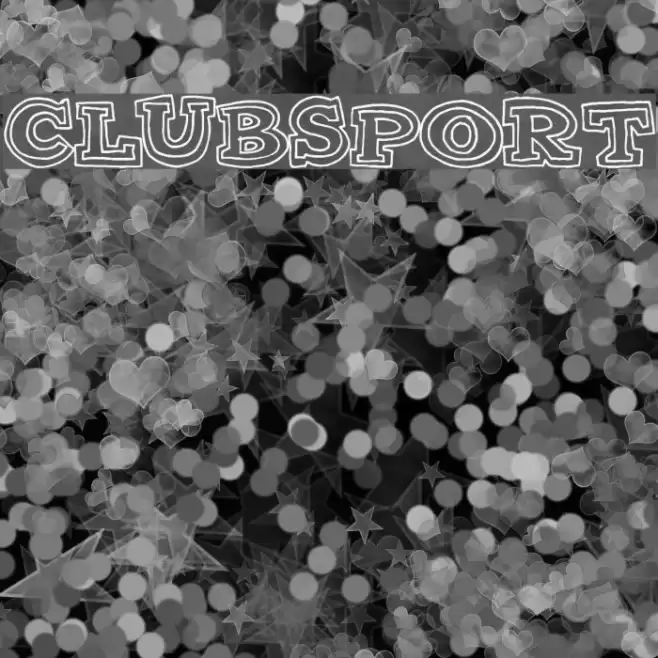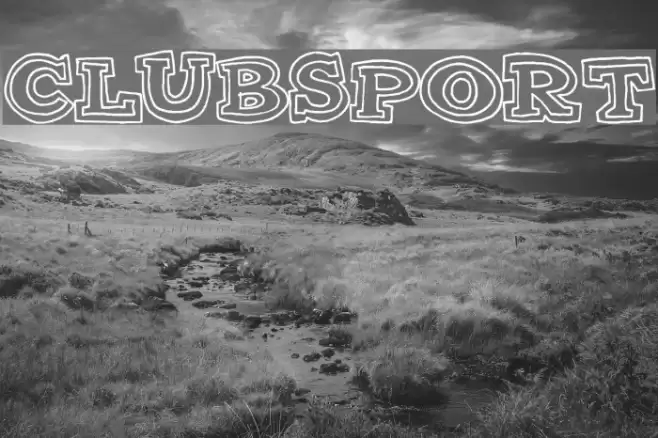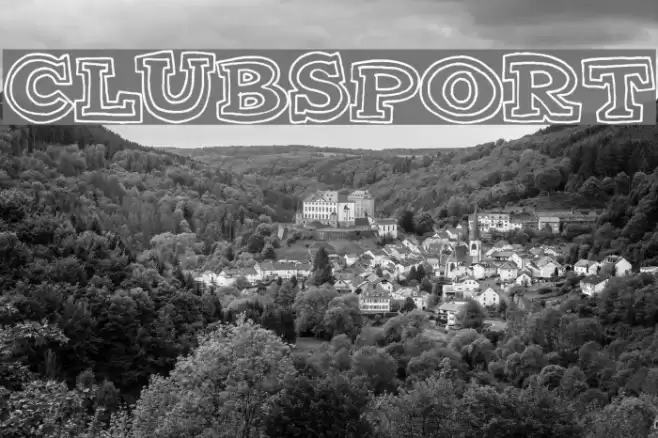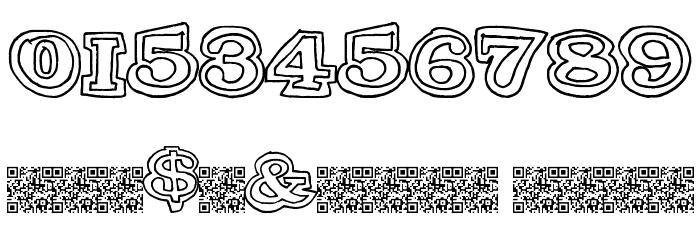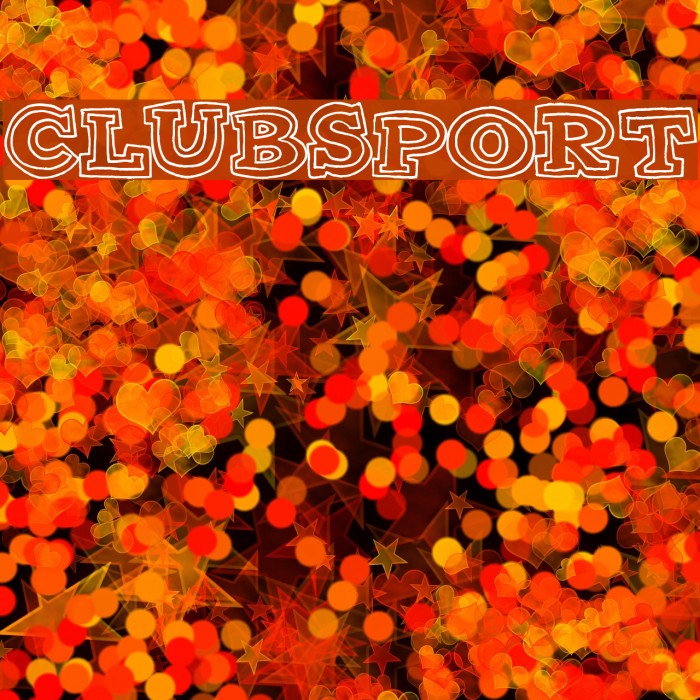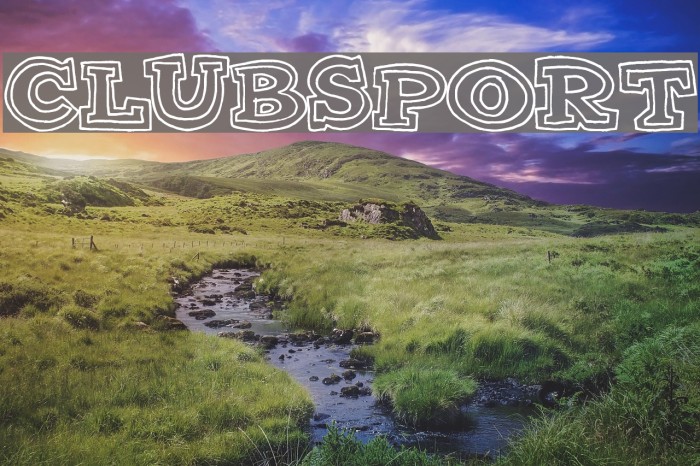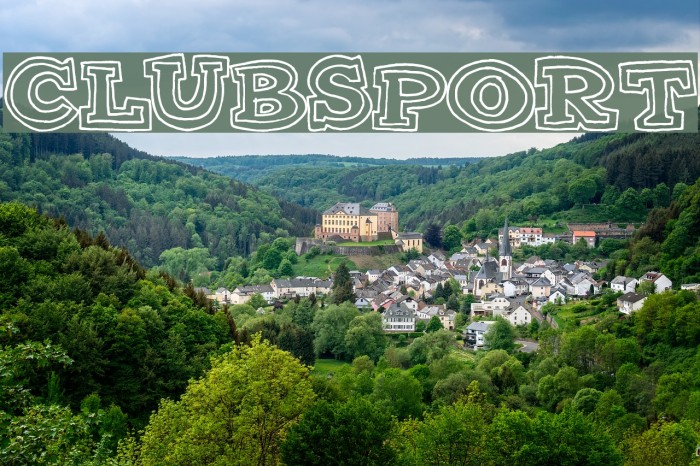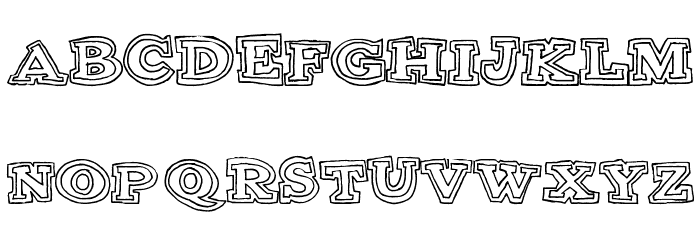
ClubSport Font
ClubSport Description
This font features a bold, outlined style with a playful and dynamic appearance. The letters are uppercase and lowercase, with a consistent thickness that creates a strong visual impact. The design includes a double outline, giving it a three-dimensional effect that stands out. The characters are well-spaced, ensuring readability while maintaining a fun and energetic vibe. The numbers and special characters follow the same design principles, making the font versatile for various uses. Its decorative nature makes it ideal for projects that require a lively and engaging typeface.
A bold, outlined font with a playful and dynamic style from Cartoon fonts.
- Proposed Projects: Ideal for sports team logos, event posters, children's book covers, and playful branding.
- Overall Style: Playful, Energetic
- Use Case: Logos, Posters, Branding